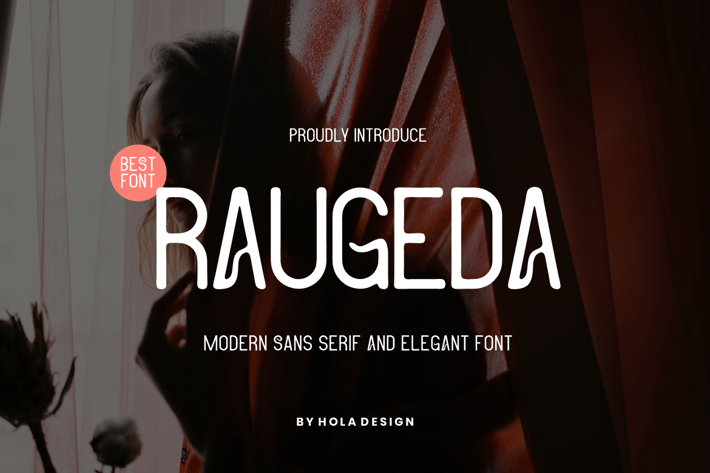
Raugeda - Sans Serif Font
Raugeda - Sans Serif Font Font is unique . Ready to use for your design like labeling, movie sceen, poster, movie title, gigs, album covers, logos, and much more.